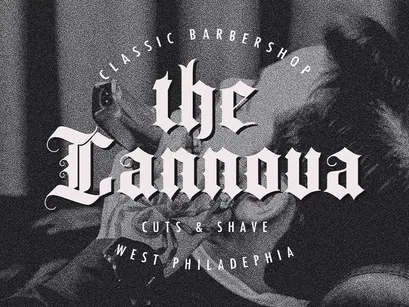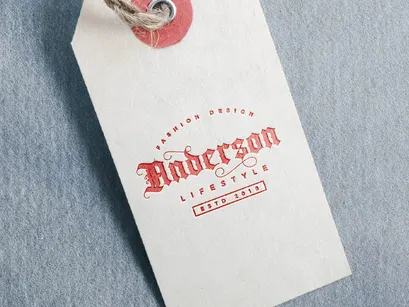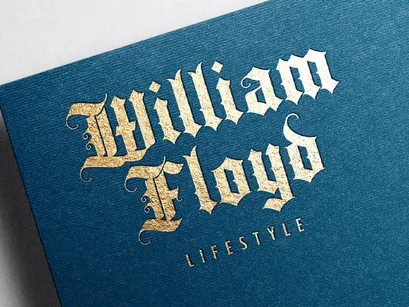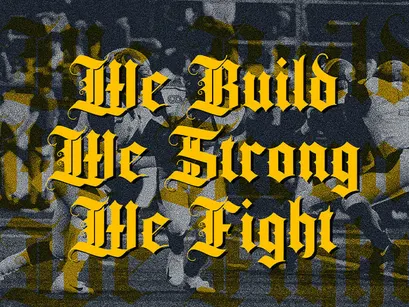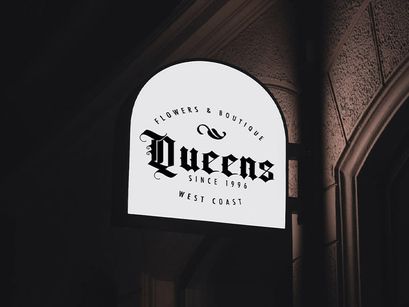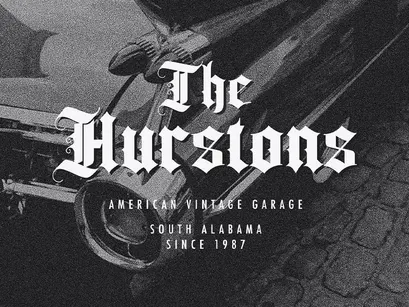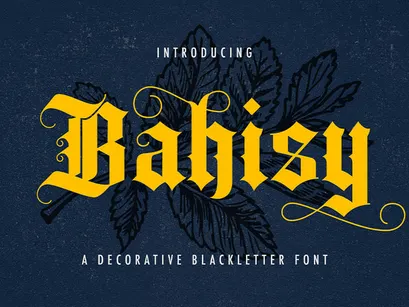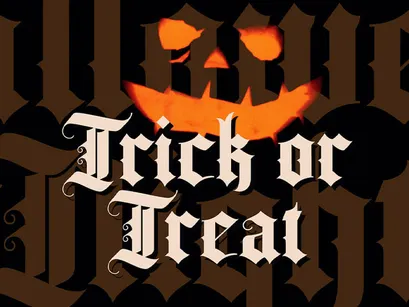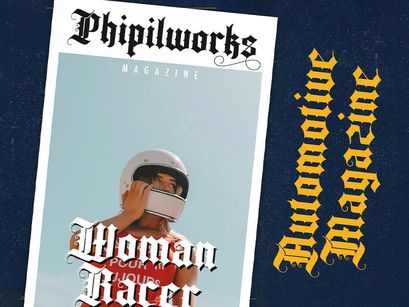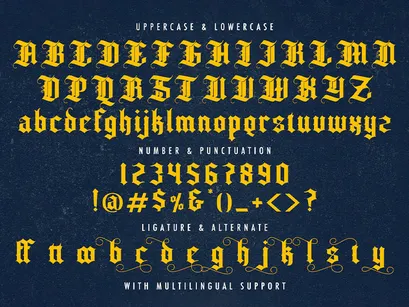
Introducing Bahisy - Blackletter Font
Bahisy is an incredibly authentic and daring blackletter font. Add this font to your favorite creative ideas and notice how it makes them stand out!
- Alternates
- Ligatures
- Uppercase and Lowercase letters
- Numbering and Punctuations